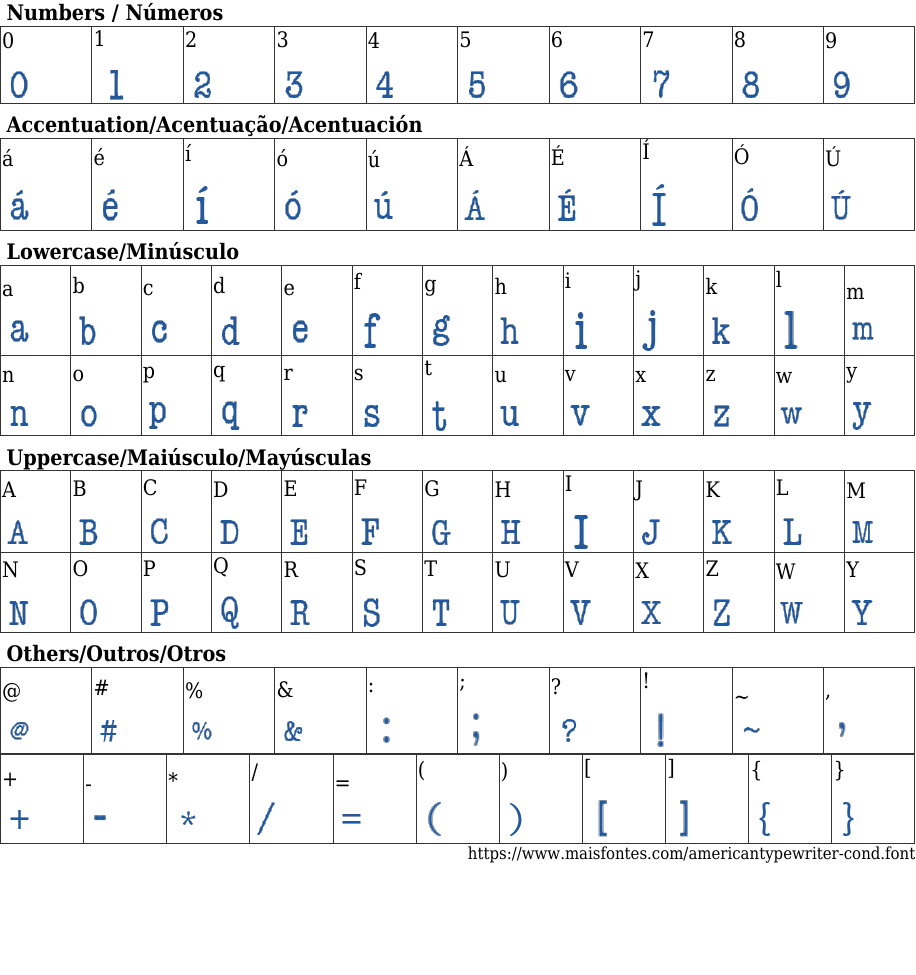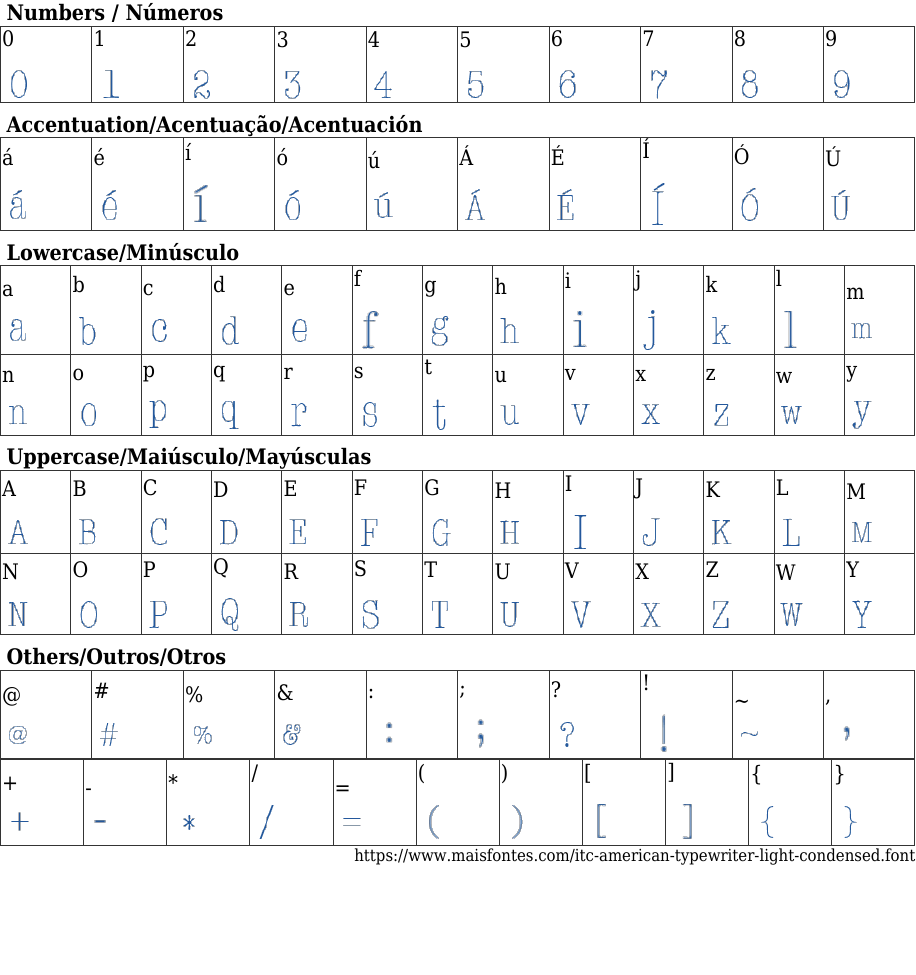
American Typewriter Condensed Font Download . Joel kaden , tony stan publisher: The american typewriter bold condensed font brings firmer and bolder letters and requires. itc american typewriter™ font field guide including best practices, font pairings and alternatives. download american typewriter condensed for free. download american typewriter for free, view sample text, rating and more on fontsgeek.com. the american typewriter font is available in version 1.01 with a build of 1000. download a pdf version of the itc american typewriter font field guide here! american typewriter bold condensed: the american typewriter condensed font brings firmer and bolder letters and requires. In addition, the font has 490 glyphs, 259 characters, and 18 different styles. you can also get ease with the american typewriter font generator.
The american typewriter bold condensed font brings firmer and bolder letters and requires. american typewriter bold condensed: Joel kaden , tony stan publisher: download a pdf version of the itc american typewriter font field guide here! In addition, the font has 490 glyphs, 259 characters, and 18 different styles. the american typewriter condensed font brings firmer and bolder letters and requires. download american typewriter condensed for free. download american typewriter for free, view sample text, rating and more on fontsgeek.com. the american typewriter font is available in version 1.01 with a build of 1000. itc american typewriter™ font field guide including best practices, font pairings and alternatives.
American Typewriter Condensed Font Download download american typewriter for free, view sample text, rating and more on fontsgeek.com. you can also get ease with the american typewriter font generator. itc american typewriter™ font field guide including best practices, font pairings and alternatives. In addition, the font has 490 glyphs, 259 characters, and 18 different styles. download american typewriter condensed for free. the american typewriter condensed font brings firmer and bolder letters and requires. download american typewriter for free, view sample text, rating and more on fontsgeek.com. download a pdf version of the itc american typewriter font field guide here! american typewriter bold condensed: Joel kaden , tony stan publisher: the american typewriter font is available in version 1.01 with a build of 1000. The american typewriter bold condensed font brings firmer and bolder letters and requires.